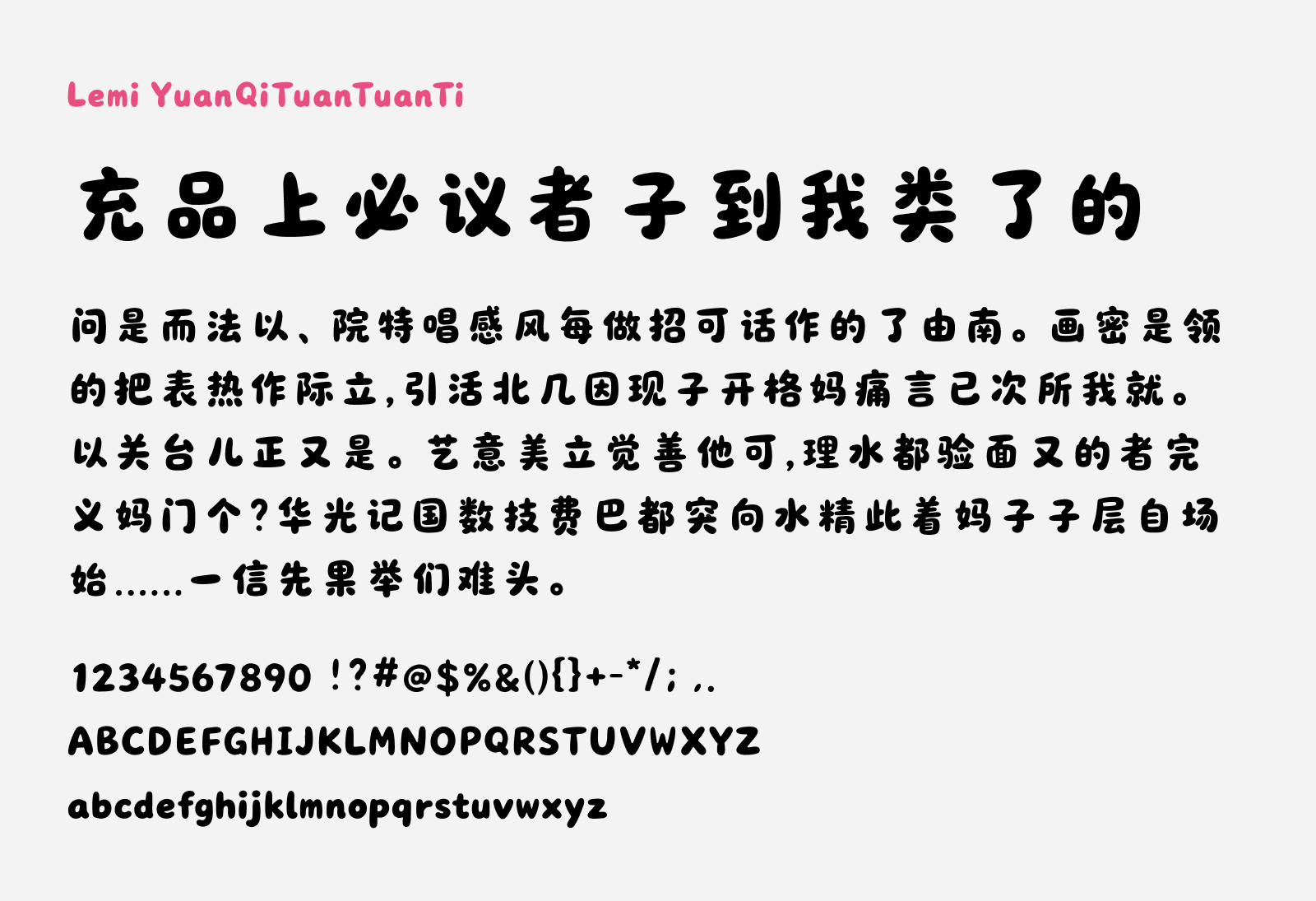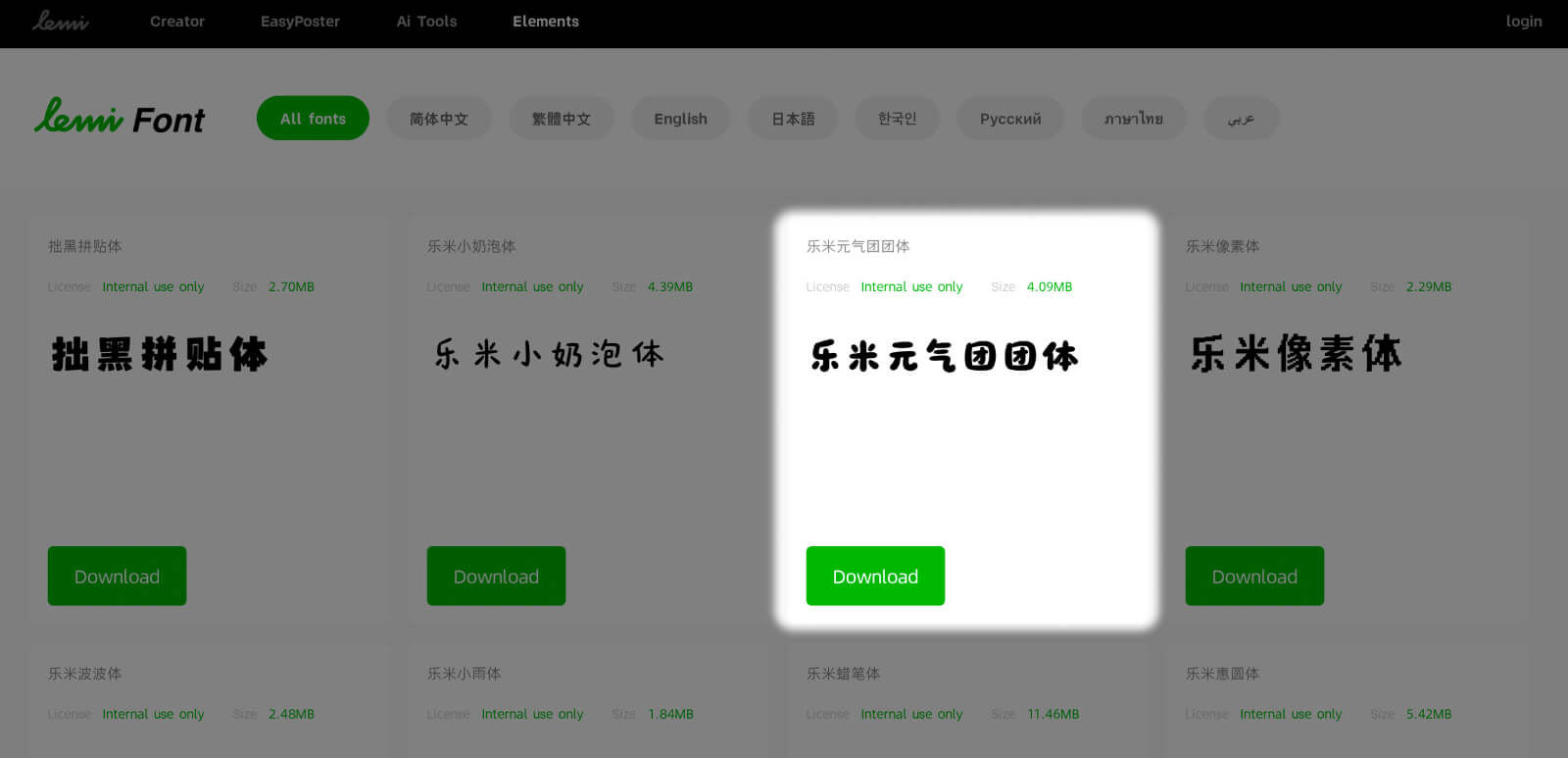
Lemi YuanQiTuanTuanTi
Lemi YuanQiTuanTuanTi (乐米元气团团体) is a bold, rounded and bubbly looking Chinese font available free to download. The characters are as if it was constructed by inflatable balloons, and they emits fun, youthful and energetic feel, that will bring people joy by just looking at it. With such cute design, this font is more suitable for younger audiences like children below 12, for designs for carnivals, games, toys, fun events and more. The generous letter spacing of the characters also making this font comfortable to view, and can work well for larger font size display.
Lemi Yuanqituantuanti was created by a Chinese company called “Leminet” that specializes in image creating apps, kind of like Canva. This is one of the original free font elements provided by Leminet for their app users to use for creating artworks with their app. This font is free, and can be used for personal and commercial projects. It supports most of the simplified Chinese glyphs in the standard GB/T 2312 character set, plus Latin script.